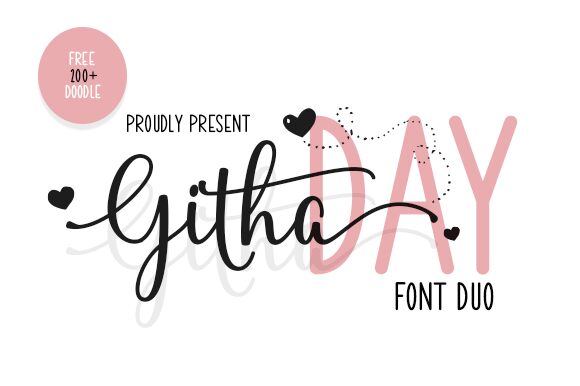
Day Display
Day Display, designed by Danar Nugroho, is a striking display font that exudes a modern and sophisticated vibe. With its semi-light weight and extra-condensed width, this font commands attention with its clean lines and sharp edges. Perfect for a range of projects, Day Display is ideal for branding materials such as logos, business cards, and packaging designs. Its minimalist style also makes it suitable for editorial layouts like magazine covers or book titles. This versatile font will elevate any project with its sleek and contemporary aesthetic.